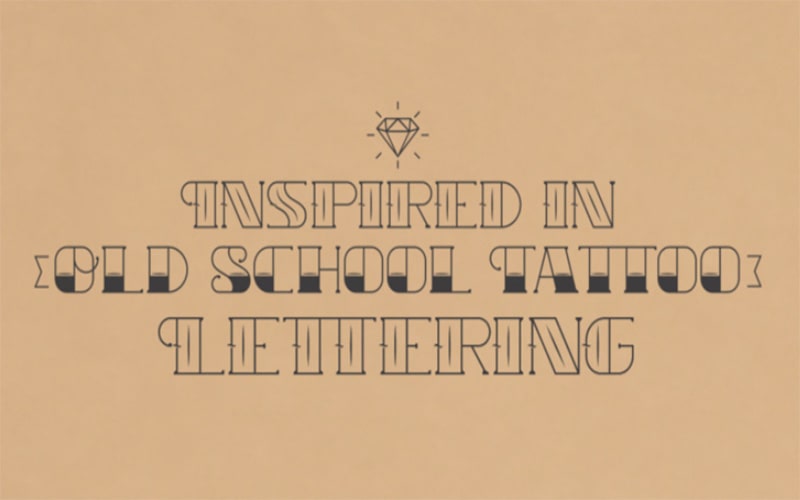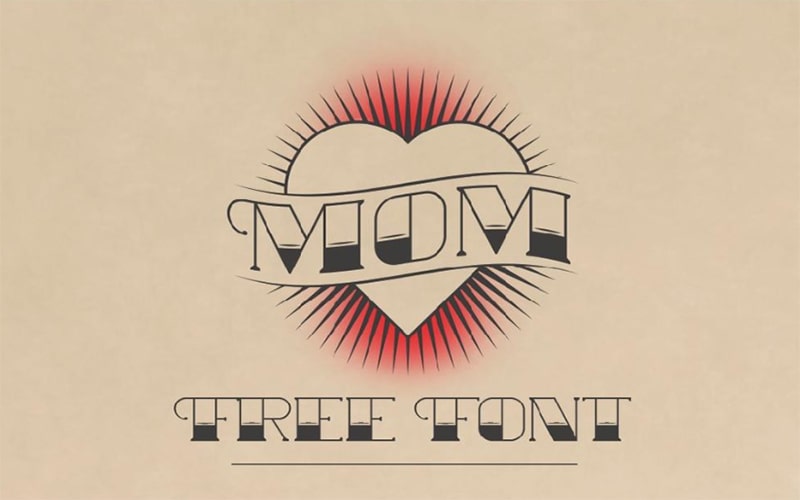
Mom Font Family is a Script, Display typeface. This stunning typeface is layered to give a stunning look to your projects which makes it familiar around the world.
Rafa Miguel is known as the primary designer who took charge to create this typeface for giving an outstanding look to your projects.
A retro decorative outline font contains two elegant styles such as “Mom Halfblack” and “Mom Outline” Font styles. The font subfamily of this typeface is medium.
The Mom font is a great choice for your projects such as branding projects, houseware designs, product packaging, and traditional typography designs.
Its basic elements are great for all your fun designs and are used for different purposes such as creating cool designs, and covers, setting the names of the store, and logos.
This outlined and half-black free version font style contains a strong character set including numbers, uppercase, and lowercase letters.
This single-weight medium typeface contains 82 defined characters for each style. It also supports 2 international languages including English and Zulu.